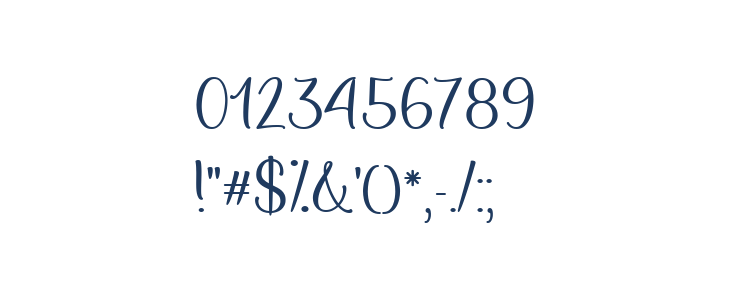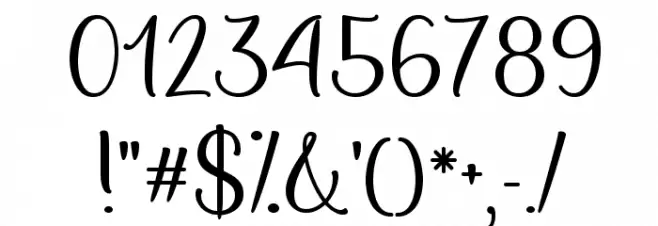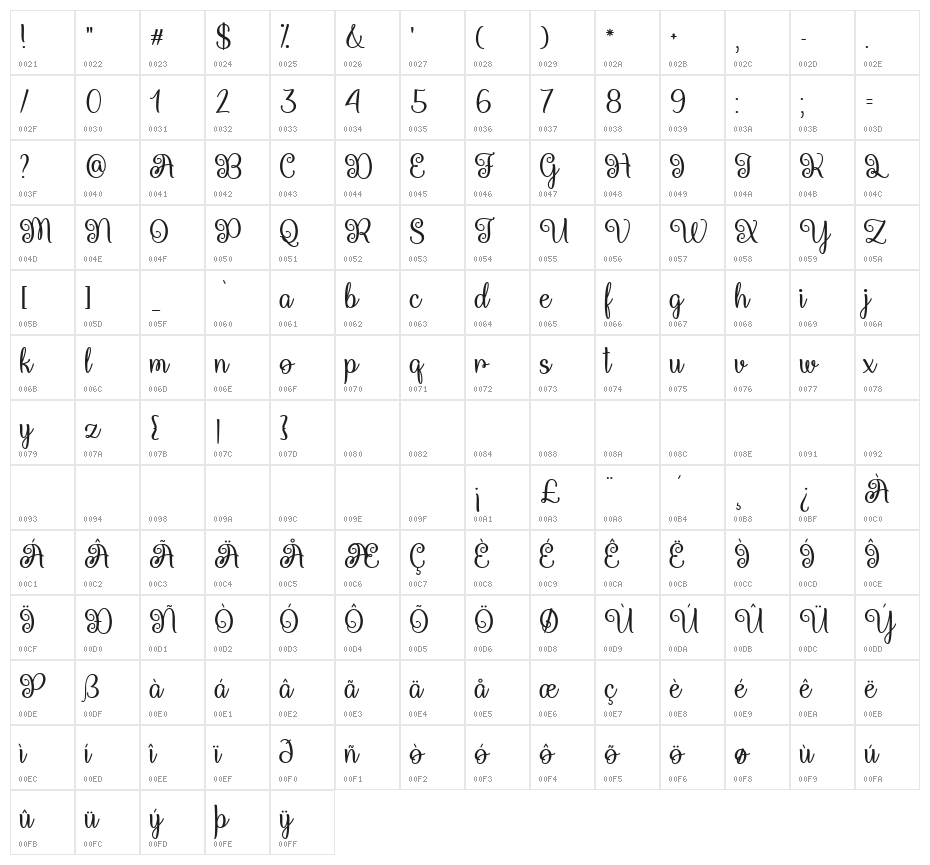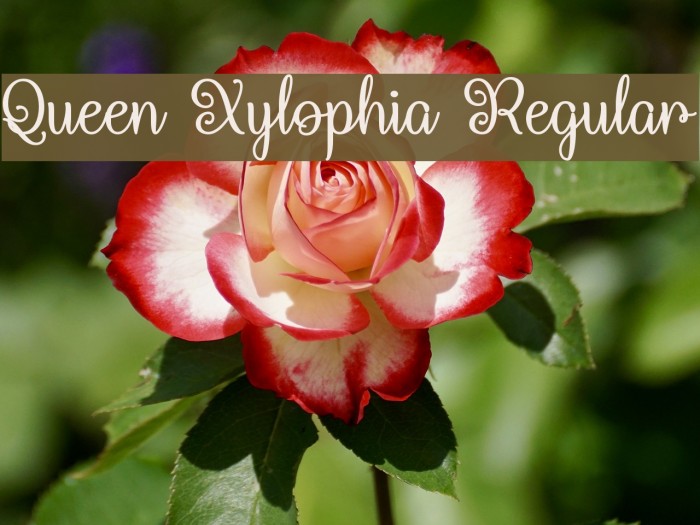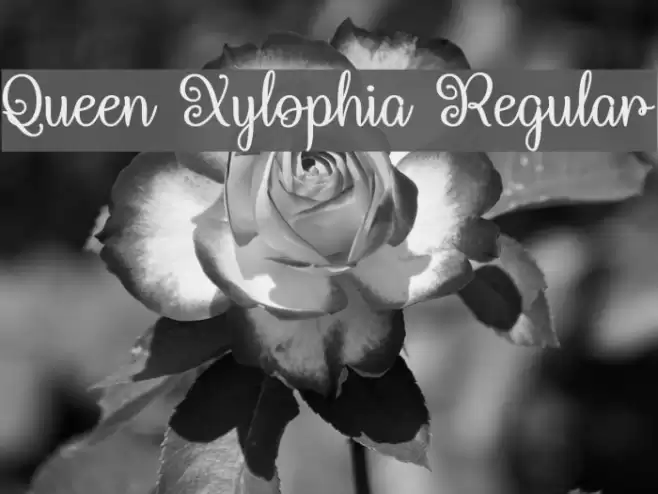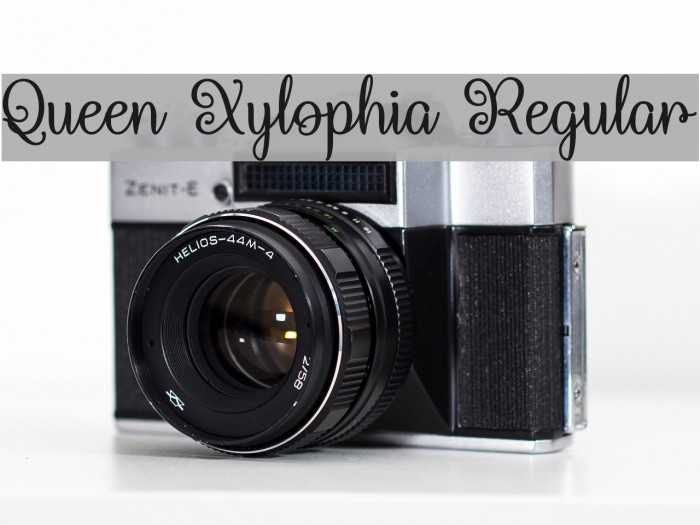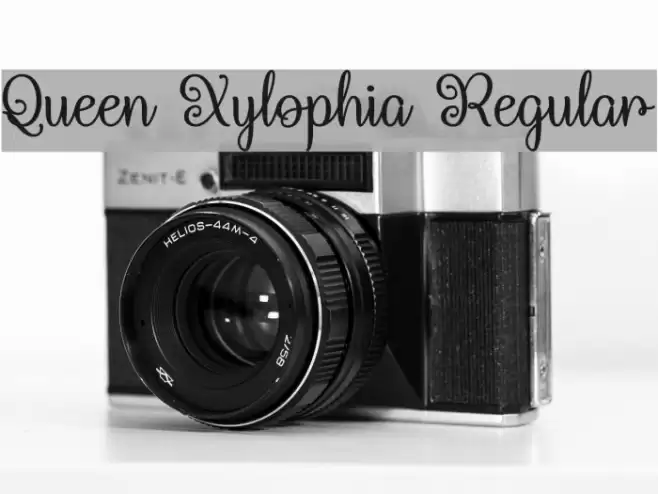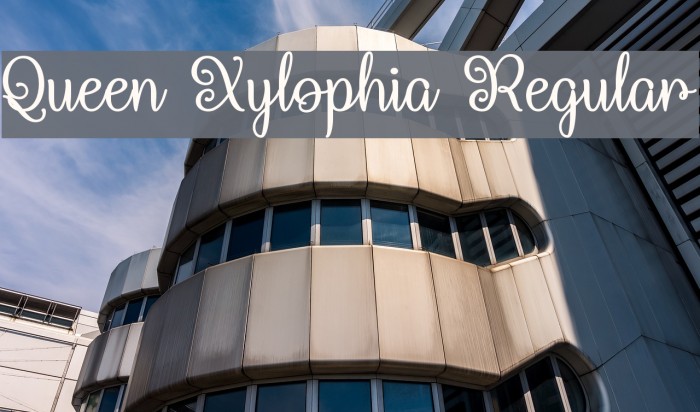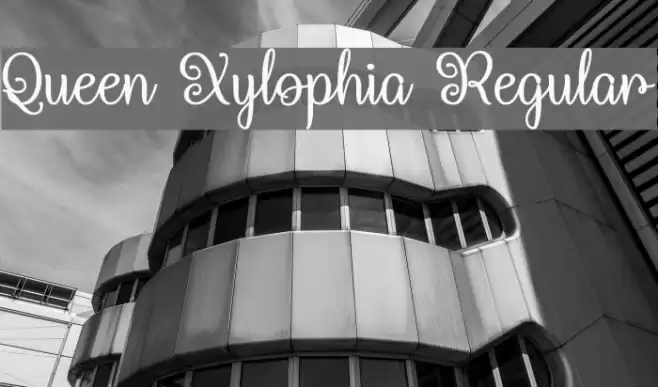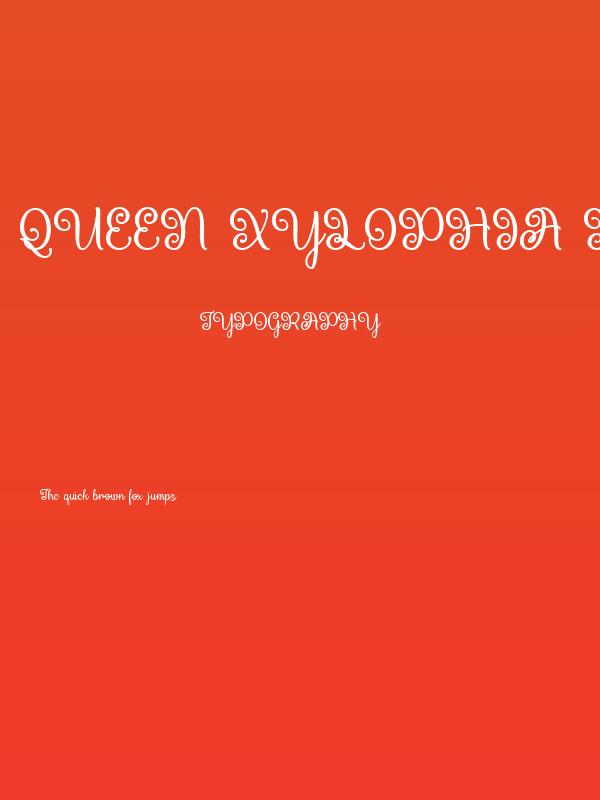
Queen Xylophia Regular Font
Queen Xylophia Regular Description
This font features a whimsical and decorative style with intricate curls and loops that give it a playful and artistic appearance. The uppercase letters are particularly ornate, with each character exhibiting unique flourishes that add a sense of elegance and creativity. The lowercase letters maintain a more consistent flow, balancing the overall design with their smooth and connected strokes. The numerals are bold and clear, ensuring readability while still incorporating subtle decorative elements. Special characters are designed to match the overall aesthetic, making this font suitable for a variety of creative projects.
| Use Case | Headlines, Logos, Artistic projects |
| Proposed Projects | Ideal for invitations, greeting cards, branding, and artistic projects that require a touch of elegance and creativity. |